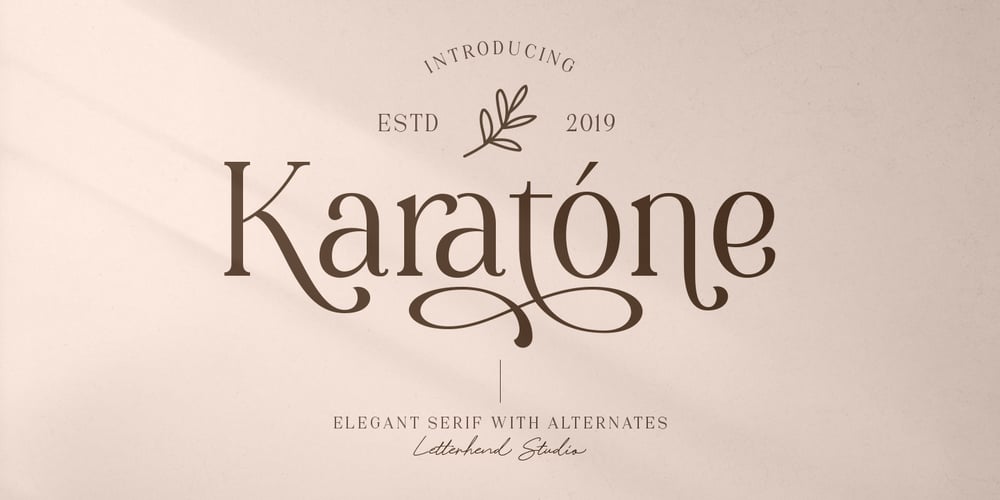
Karatone Font Family was designed by Hendry Juanda, Sarid Ezra and published by Letterhend. Karatone contains 1 styles and family package options. Introducing, Karatone, An Elegant Serif. This typeface has many alternates with swashes that can make your lettering / logotype become more interesting. The clean and neat of a serif combined with the swirl swashes makes this font one of a kind!This font perfectly made to be applied especially in logo, and the other various formal forms such as invitations, labels, logos, magazines, books, greeting / wedding cards, packaging, fashion, make up, stationery, novels, labels or any type of advertising purpose.Features : uppercase & lowercase numbers and punctuation multilingual ligatures alternates swashes PUA encoded We highly recommend using a program that supports OpenType features and Glyphs panels like many of Adobe apps and Corel Draw, so you can see and access all Glyph variations.Email us to letterhend@gmail.com if you need something! Happy Designing!